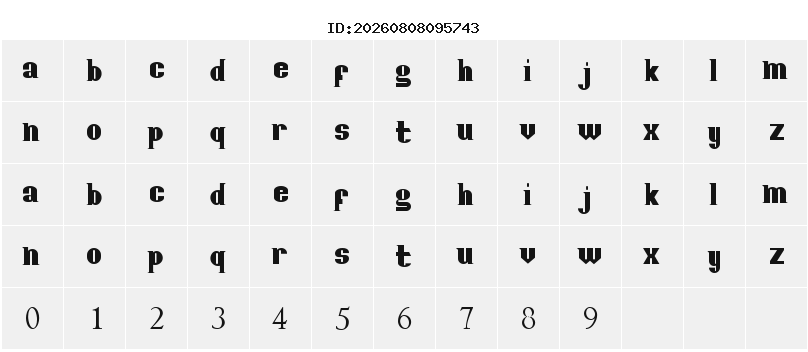
Posterfont Preview
• Font Name: Posterfont
• Full Font Name: Posterfont
About Posterfont.ttf
Posterfont.ttf is a modern, elegant sans-serif font designed for ultimate readability and visual harmony. Perfect for branding, headlines, web design, and print materials.